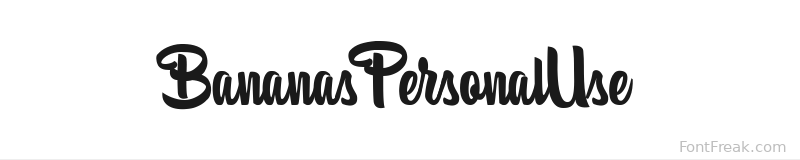
BananasPersonalUse
About BananasPersonalUse
The BananasPersonalUse font, designed by Billy Argel Fonts, is a captivating display typeface that embodies a playful and whimsical aesthetic. This handwritten style font features a smooth, flowing script with a unique flair that makes it stand out in any design project. The stroke weight is moderately thick, providing a bold presence while maintaining legibility, ensuring that your text captures attention without sacrificing clarity. The letters exhibit a consistent spacing that enhances readability, allowing them to flow seamlessly together, creating a cohesive visual experience.
Ideal for a variety of creative applications, the BananasPersonalUse font is perfect for wedding invitations, where its charming style can convey warmth and joy. It also suits movie posters, where its distinctive character can evoke excitement and intrigue. Restaurant menus can benefit from this font's inviting nature, making it an excellent choice for establishments looking to create a cozy atmosphere. Additionally, it can be used in social media graphics to engage audiences with its friendly and approachable vibe.
Targeting graphic designers, small business owners, and content creators alike, the BananasPersonalUse font provides versatility in its applications. Whether you’re crafting promotional materials or personal projects, this font adds a unique touch that enhances visual storytelling.
What truly sets the BananasPersonalUse font apart is its ability to infuse personality into any design. Its handwritten charm and lively character create an immediate connection with viewers, making it an excellent choice for projects that require a hint of creativity and fun. With its availability as a freeware option, designers can enjoy the benefits of this distinctive typeface without any cost. Don’t miss out on the opportunity to enhance your designs with this delightful typography; consider the BananasPersonalUse font free download for your next creative endeavor.